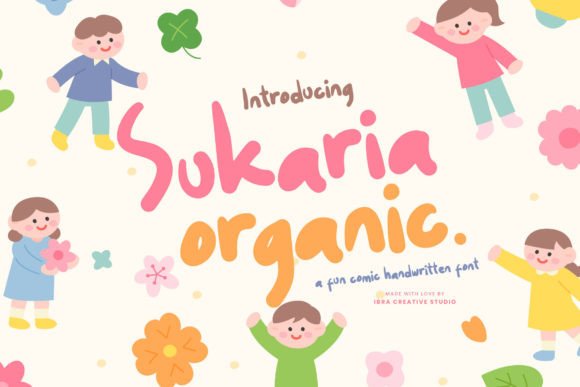
Step into a whimsical realm where words dance with a joyful bounce and authenticity reigns supreme. Introducing Sukaria Organic, a spirited and playful handwritten font family, ready to ignite your creativity and captivate your audience.
Crafted with the flair of a master calligrapher, each stroke of Sukaria Organic exudes organic whimsy and a carefree spirit. Its slightly irregular lines and organic texture evoke the charm of hand-drawn lettering, adding a touch of natural beauty to your designs.
Picture your brand's message gracing elegant eco-friendly packaging, evoking a sense of harmony with nature. Envision stunning handmade product labels, where Sukaria Organic's playful curves lend a touch of cheer to your creations. Create invitations that radiate joy, inviting guests to celebrate life's special moments with a hint of whimsy.
Sukaria Organic is more than just a font; it's an invitation to embrace the beauty of imperfections and the allure of the handwritten touch. Its delightful personality shines through in every letter, ensuring that your designs make a lasting impression.
Whether you're a graphic designer seeking to add a touch of organic charm to your projects or an entrepreneur looking to infuse your brand with a sense of playfulness, Sukaria Organic is the perfect choice. Its versatility knows no bounds, making it an indispensable tool for any creative endeavor.
So, let your imagination soar and embark on a typographic adventure with Sukaria Organic. Embrace the carefree spirit and watch as your designs come alive with a touch of organic whimsy.